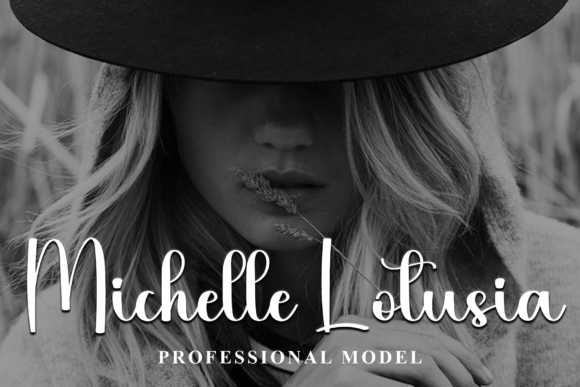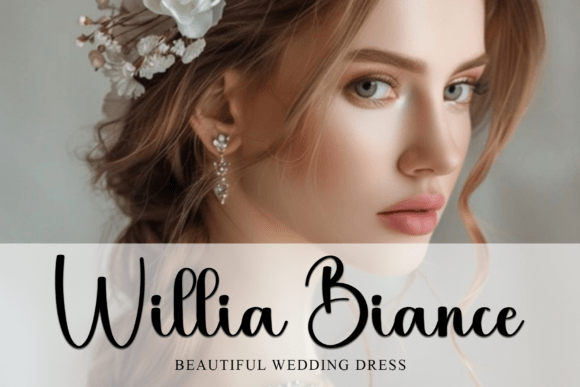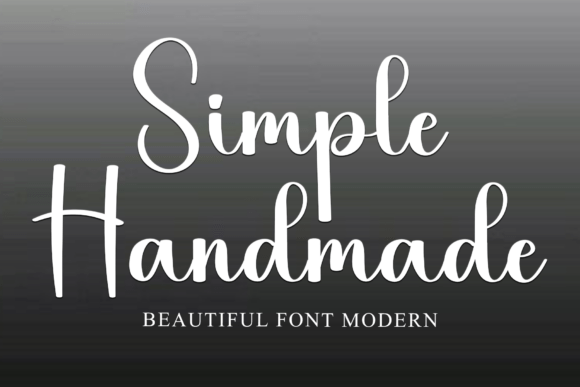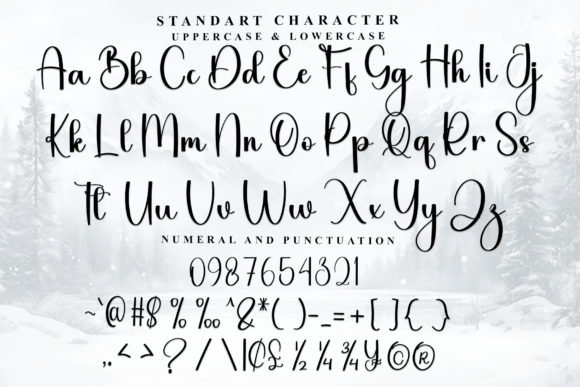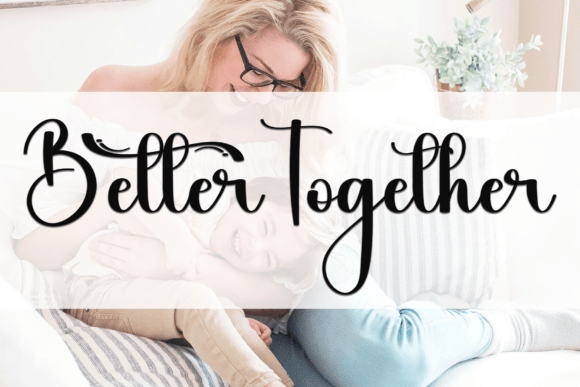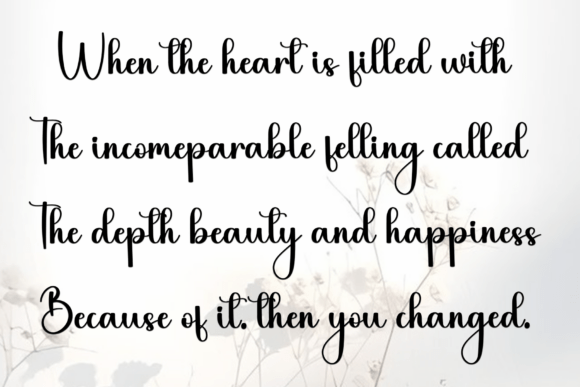
Biscuit Better Font: The Perfect Choice for Creative Designs
Are you looking for a font that can add a personal touch to your designs? Look no further than the Biscuit Better font! This casual and creative font is perfect for designers and crafters who want to create unique and eye-catching designs. In this article, we’ll explore the features and benefits of the Biscuit Better font and how it can elevate your designs.
What is Biscuit Better Font?
Biscuit Better is a hand-drawn font that exudes warmth and friendliness. Its round, playful strokes create a relaxed and approachable feel, making it perfect for personal projects, invitations, and social media graphics. The font’s charming aesthetic adds a fun and unique touch to any design, making it stand out from more traditional fonts.
Key Features of Biscuit Better Font
- PUA Encoded Glyphs: The Biscuit Better font comes equipped with standard PUA Encoded glyphs, which are designed to work seamlessly with various application engines such as Adobe Photoshop, Corel, Adobe Illustrator, Canva, and many others.
- Hand-Drawn Aesthetic: The font’s hand-drawn aesthetic gives it a unique and personal touch, making it perfect for designs that require a more human feel.
- Playful Strokes: The font’s round, playful strokes create a relaxed and approachable feel, making it perfect for designs that require a friendly tone.
Benefits of Using Biscuit Better Font
So, why should you choose the Biscuit Better font for your designs? Here are just a few benefits:
- Unique Designs: The Biscuit Better font allows you to create unique and eye-catching designs that stand out from the crowd.
- Easy to Read: The font’s playful strokes and hand-drawn aesthetic make it easy to read, even at smaller sizes.
- Versatile: The Biscuit Better font is perfect for a wide range of designs, from personal projects and invitations to social media graphics and more.
Who Can Benefit from Biscuit Better Font?
The Biscuit Better font is perfect for a wide range of designers and crafters, including:
- Graphic Designers: Graphic designers can use the Biscuit Better font to create unique and eye-catching designs for clients.
- Crafters: Crafters can use the font to create personalized invitations, cards, and other paper crafts.
- Social Media Managers: Social media managers can use the font to create engaging and interactive social media graphics.
How to Use Biscuit Better Font
Using the Biscuit Better font is easy! Here are a few tips:
- Pair with Other Fonts: Pair the Biscuit Better font with other fonts to create a unique and eye-catching design.
- Use for Headings and Titles: Use the Biscuit Better font for headings and titles to add a personal touch to your designs.
In conclusion, the Biscuit Better font is a versatile and creative font that can add a personal touch to any design. Its hand-drawn aesthetic, playful strokes, and PUA Encoded glyphs make it perfect for designers and crafters who want to create unique and eye-catching designs. Whether you’re a graphic designer, crafter, or social media manager, the Biscuit Better font is a great choice for your next project.